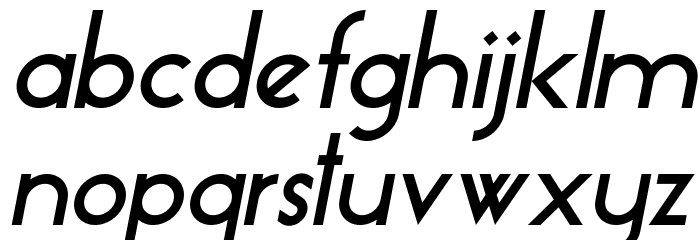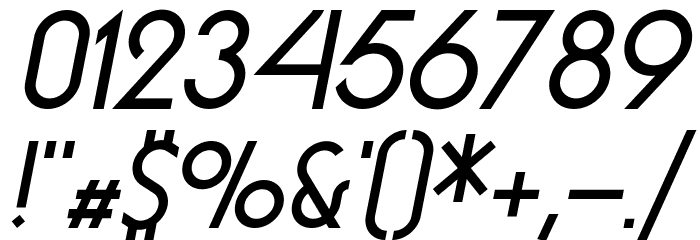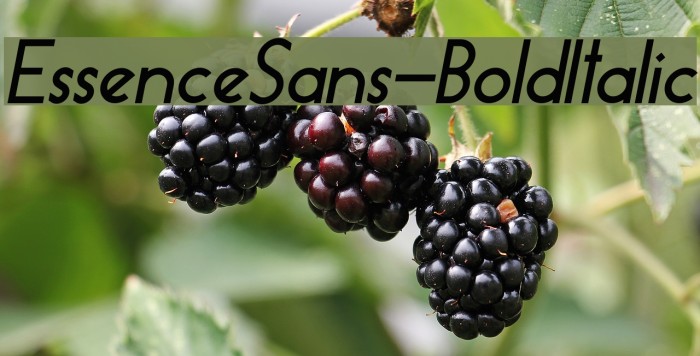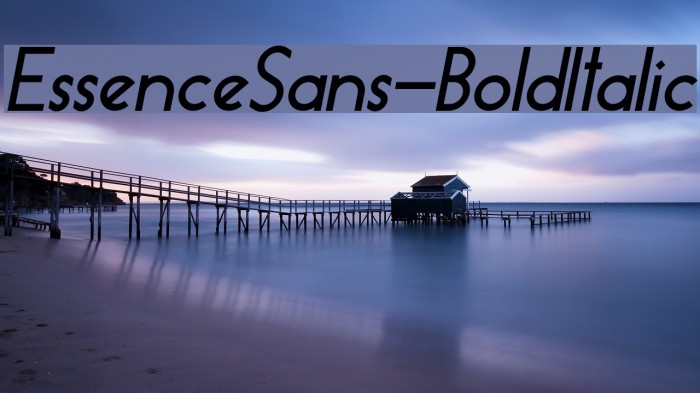
EssenceSans-BoldItalic Font
This font exhibits a sleek and modern sans-serif style with a bold and italicized appearance. The characters are slightly slanted, adding a dynamic and forward-moving feel. The strokes are consistent in thickness, providing a uniform look across all characters. The uppercase letters are tall and commanding, while the lowercase letters maintain a smooth and rounded form. The numerals are clear and distinct, ensuring readability. Special characters are well-integrated, maintaining the overall aesthetic of the font.
- Proposed Projects: Ideal for branding, advertising, and editorial design where a modern and bold statement is needed.